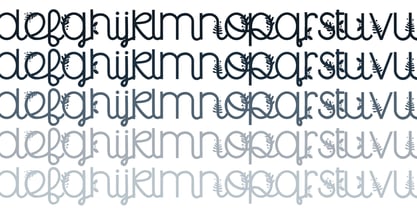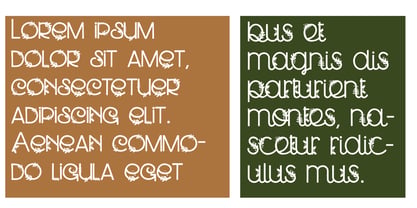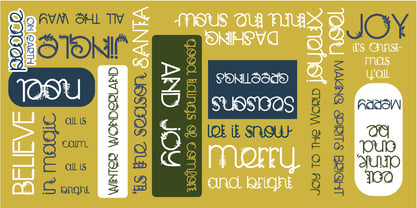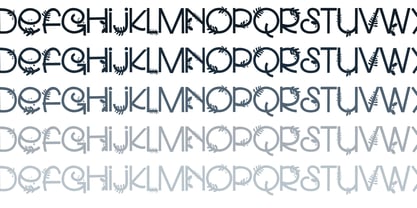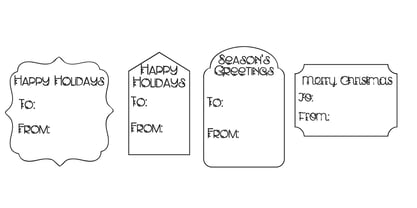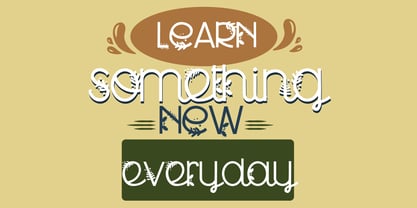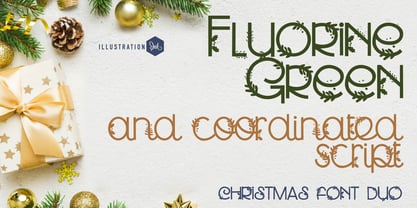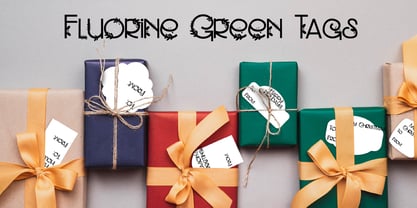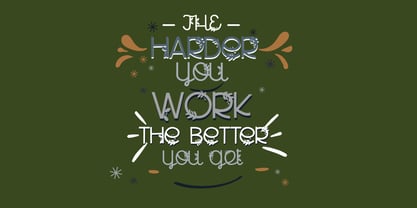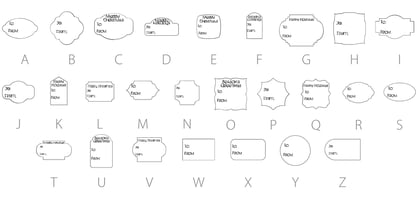
ZP Fluorine Green
by Illustration Ink
The ZP Fluorine Green Font Family was designed by Illustration Ink and published by Illustration Ink. ZP Fluorine Green contains 7 styles and family package options. More about this family
This hand-crafted font duo is made up of a sans serif font sporting holiday greens and perfectly coordinated script as well as a bonus tag dingbat font. Hand-crafted fonts can be either formal or informal, and they can be used for a variety of purposes. Some of the characteristics of handwritten fonts include: The letters are not perfectly uniform in size or shape. There may be slight variations in the spacing between letters and words. The font may have a "wiggly" or "squiggly" appearance. The font may be difficult to read at small sizes. Handwritten fonts can be a great way to add a casual touch to your designs. They can also be used to create a sense of nostalgia or whimsy. However, it is important to choose a handwritten font that is appropriate for the project you are working on. A formal handwritten font may not be appropriate for a casual invitation, while an informal handwritten font may not be appropriate for a corporate document.
ZP Fluorine Green